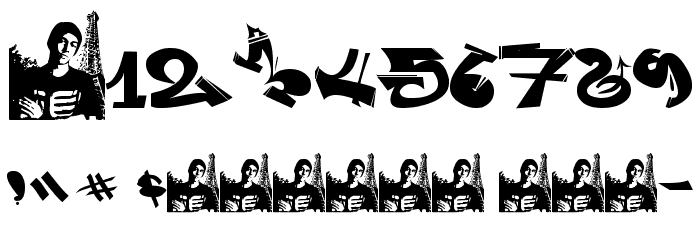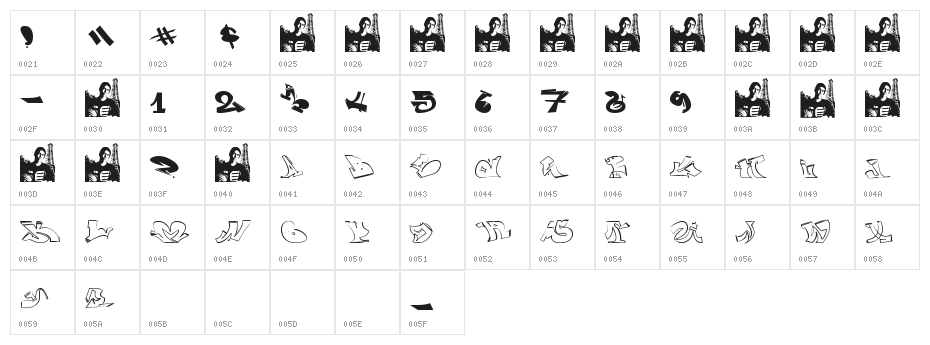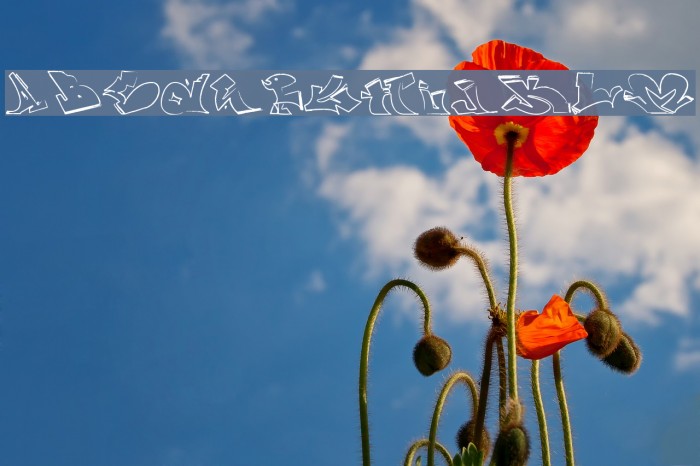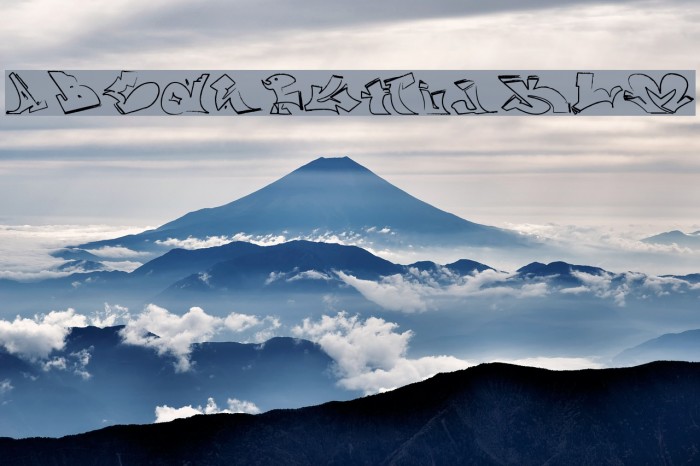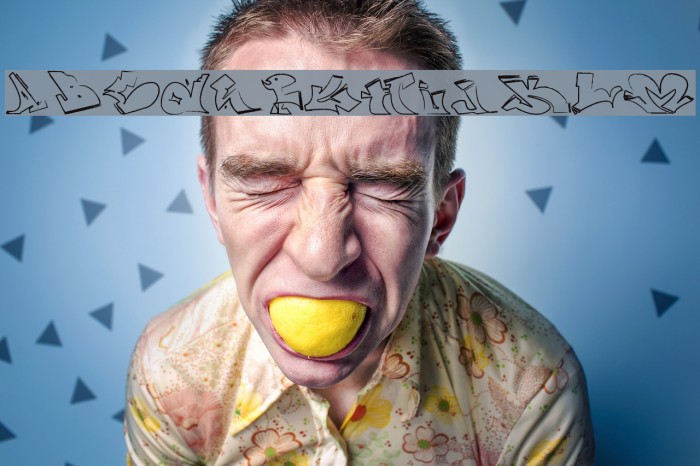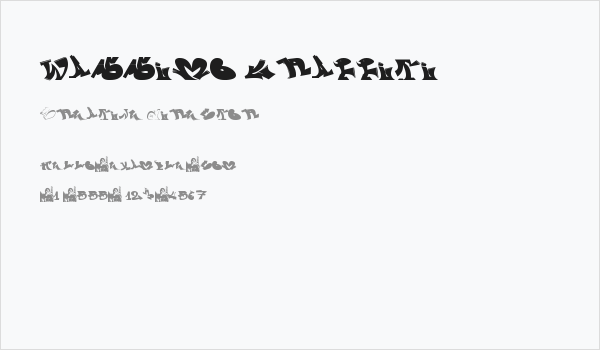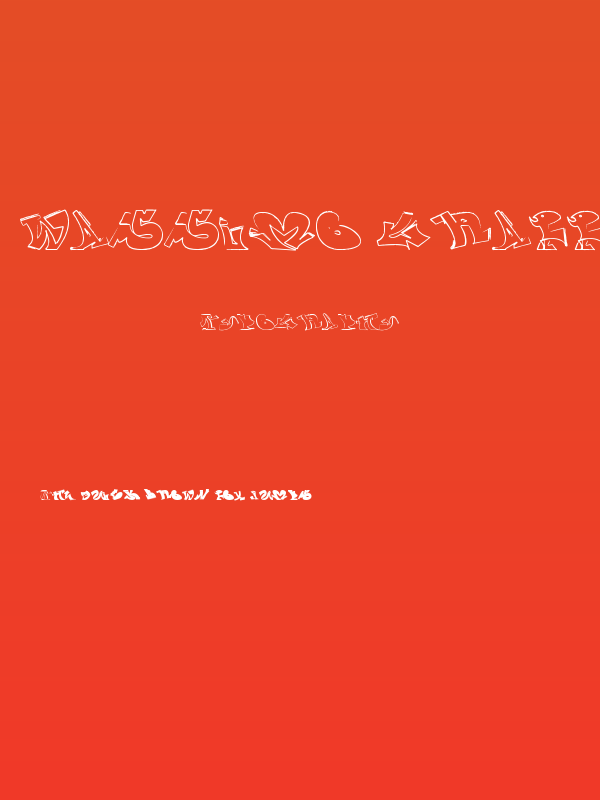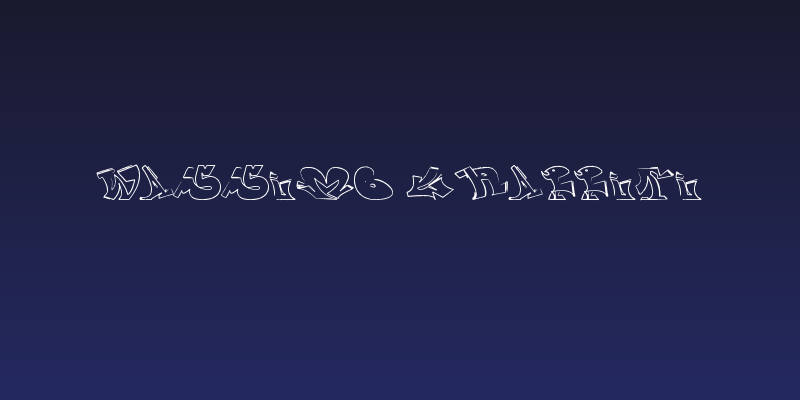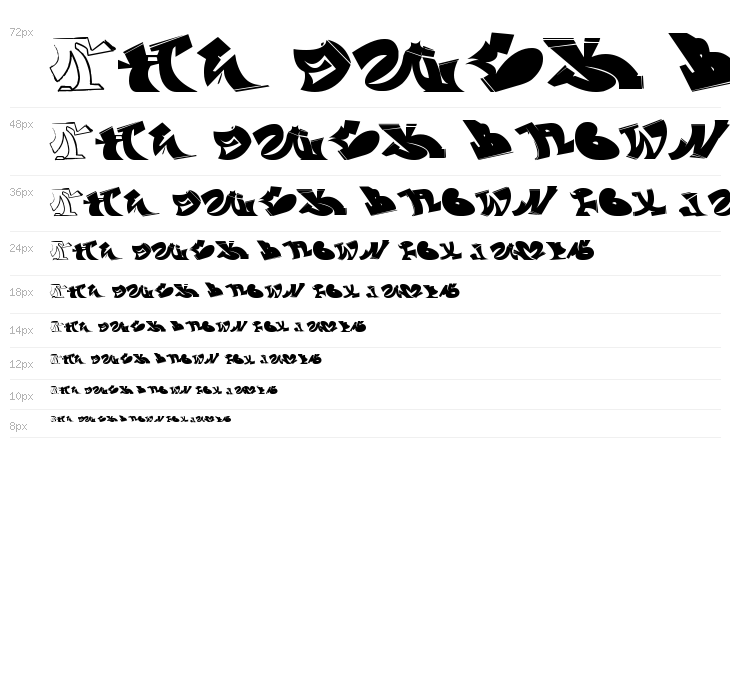
wassimo graffiti Font
This graffiti-inspired font features bold, dynamic strokes with a highly stylized and urban aesthetic. Each character is uniquely crafted with sharp angles and exaggerated curves, creating a sense of movement and energy. The letters are designed to mimic the spontaneous and expressive nature of street art, with some characters incorporating elements of shadow and depth. The font includes a full set of uppercase and lowercase letters, numbers, and a selection of special characters, each maintaining the bold and edgy style. This font is perfect for projects that aim to capture the raw and rebellious spirit of graffiti culture.
Overall StyleUrban, Graffiti, Edgy
Use CaseLogos, Posters, Street Art, Album Covers
Proposed ProjectsIdeal for street art projects, urban-themed designs, music album covers, and edgy branding.